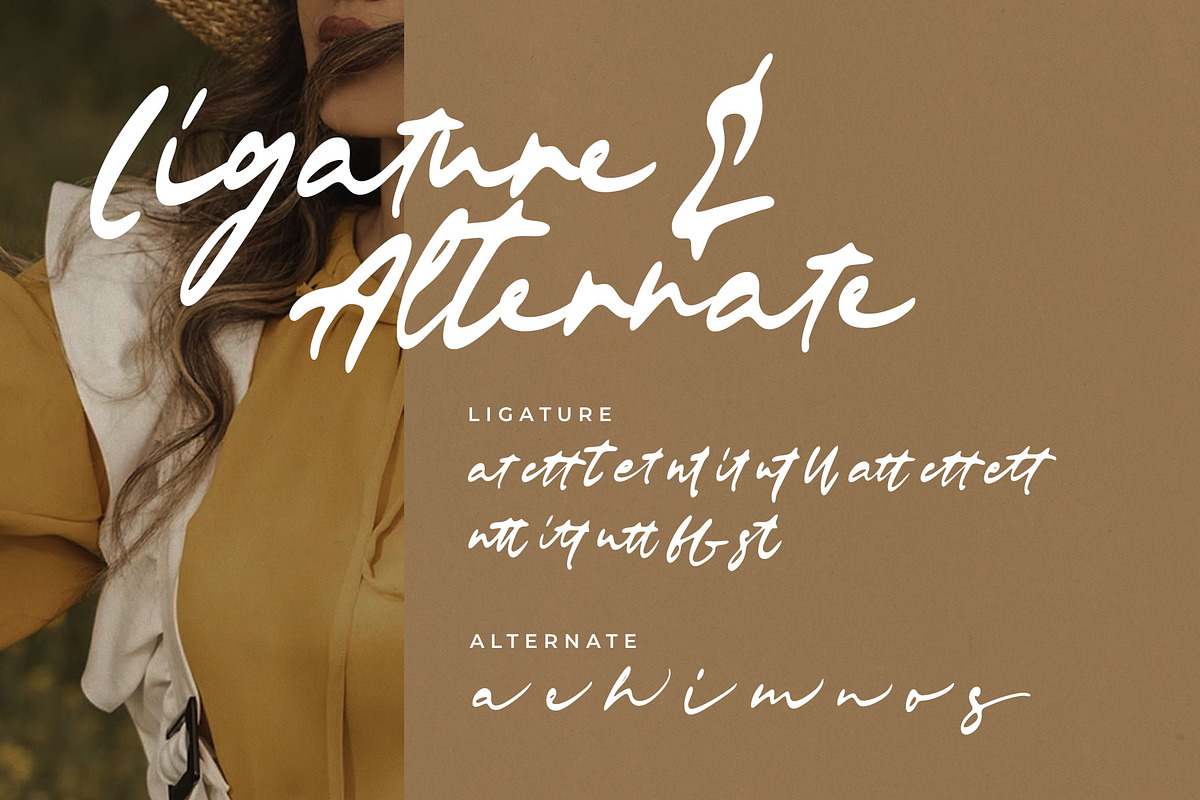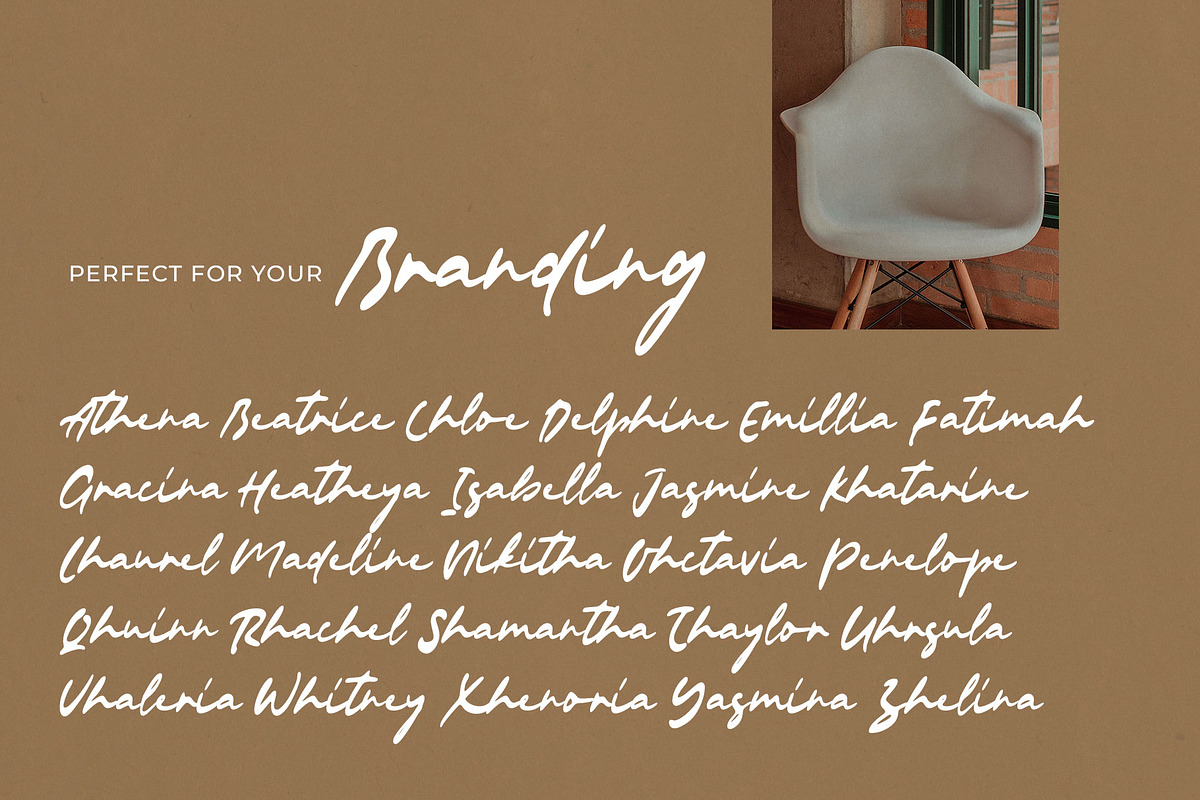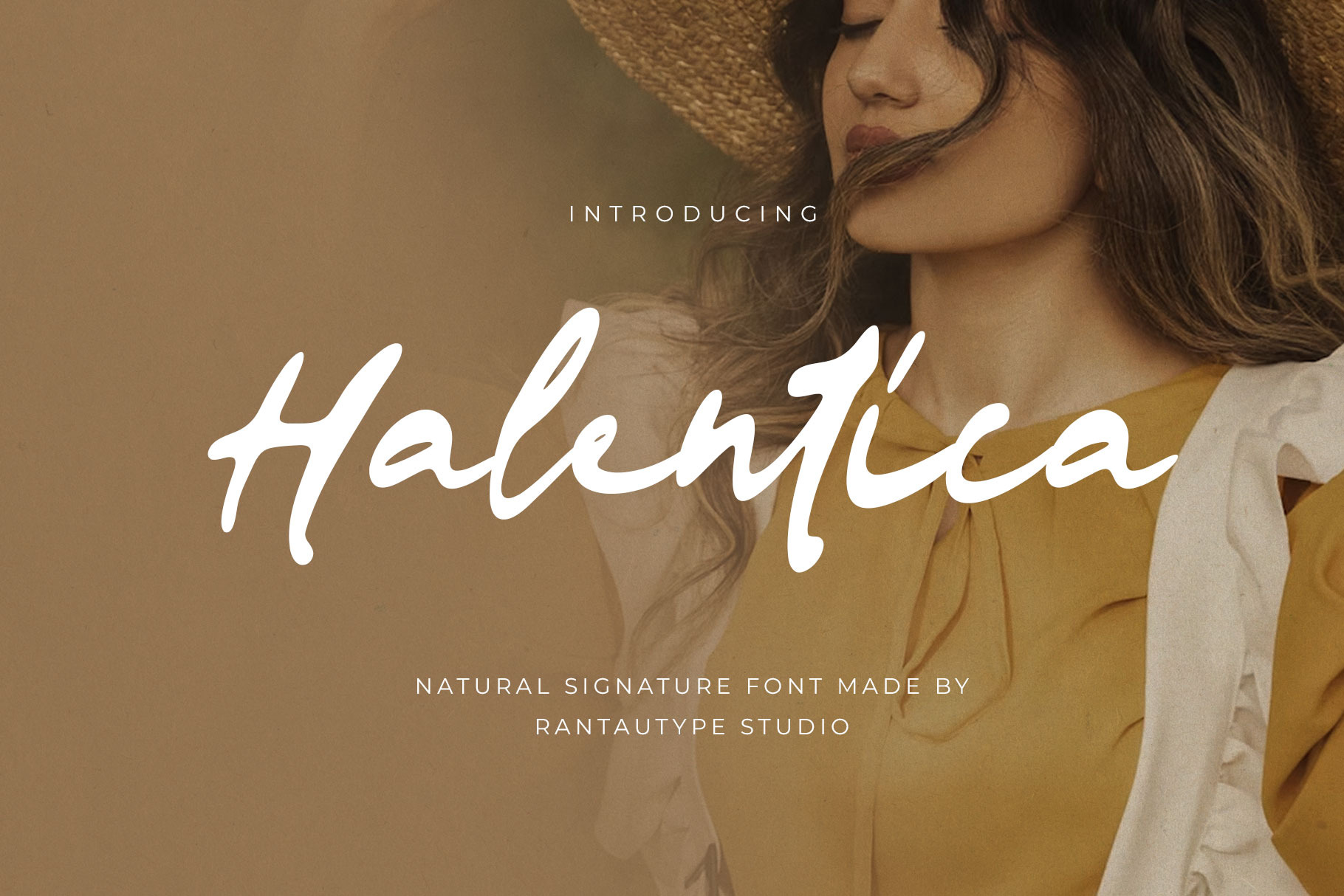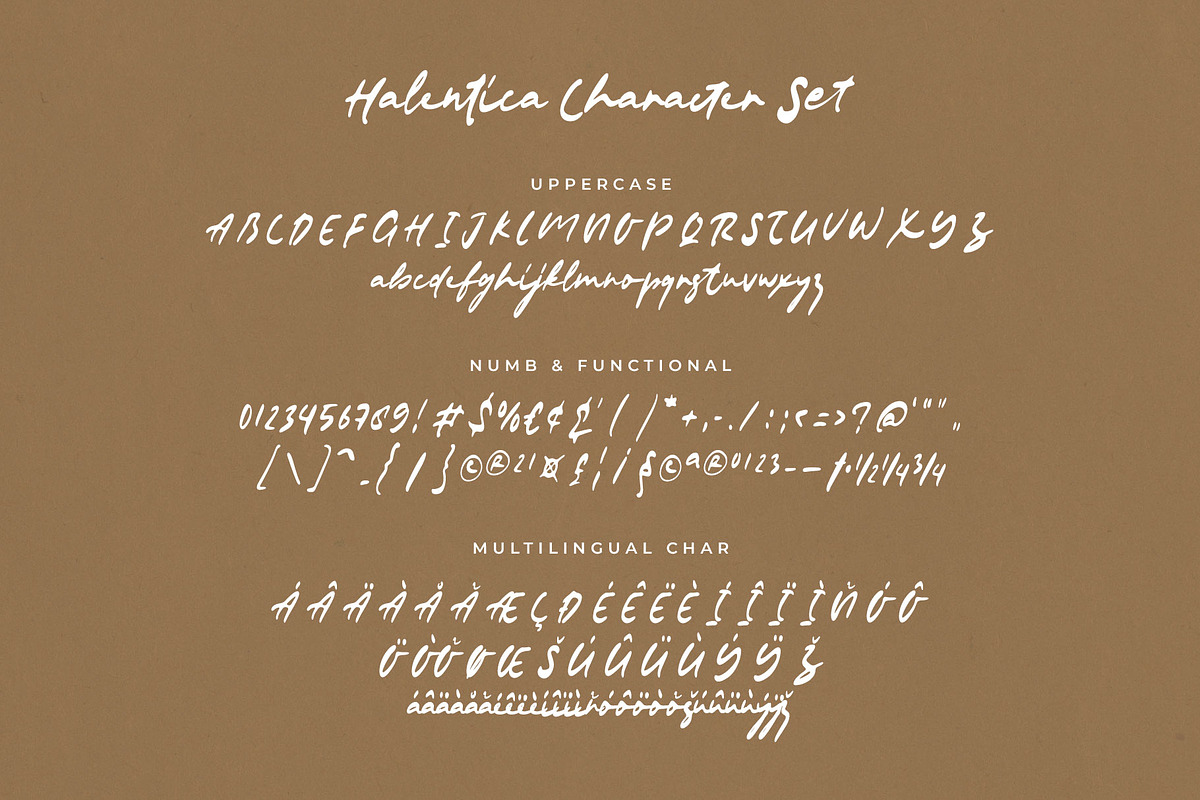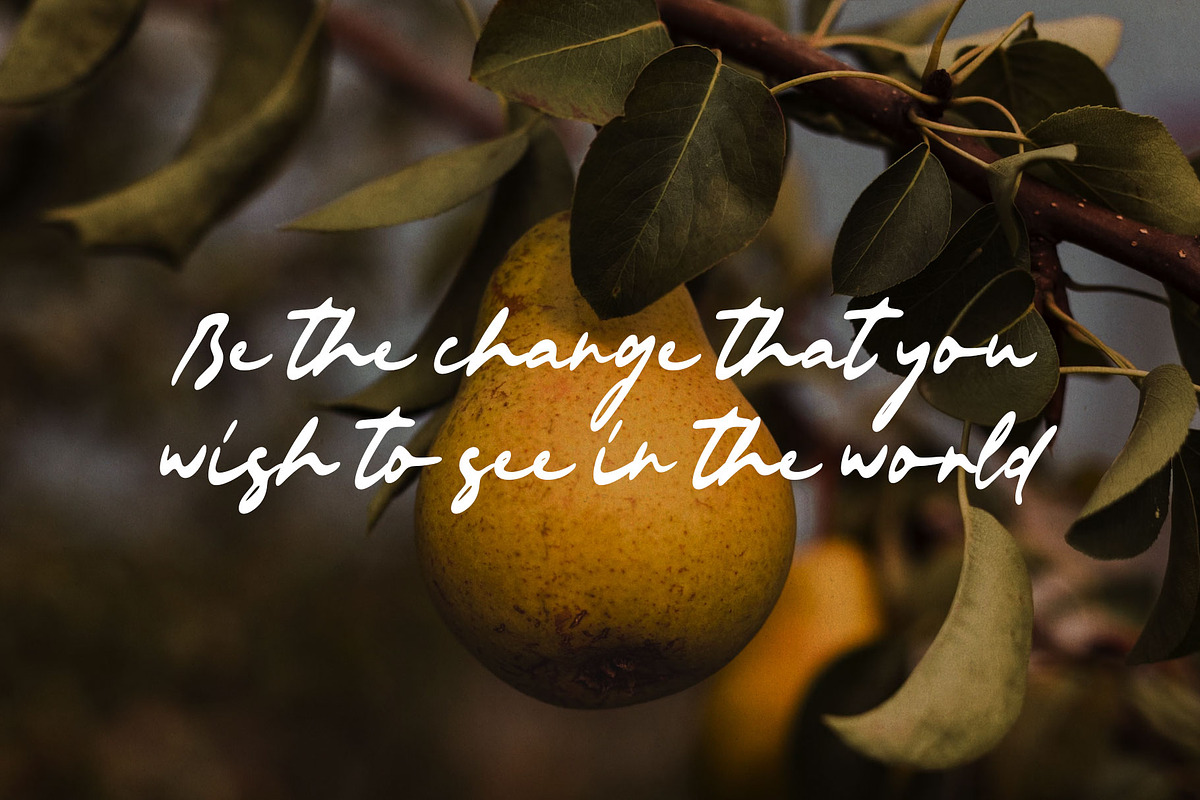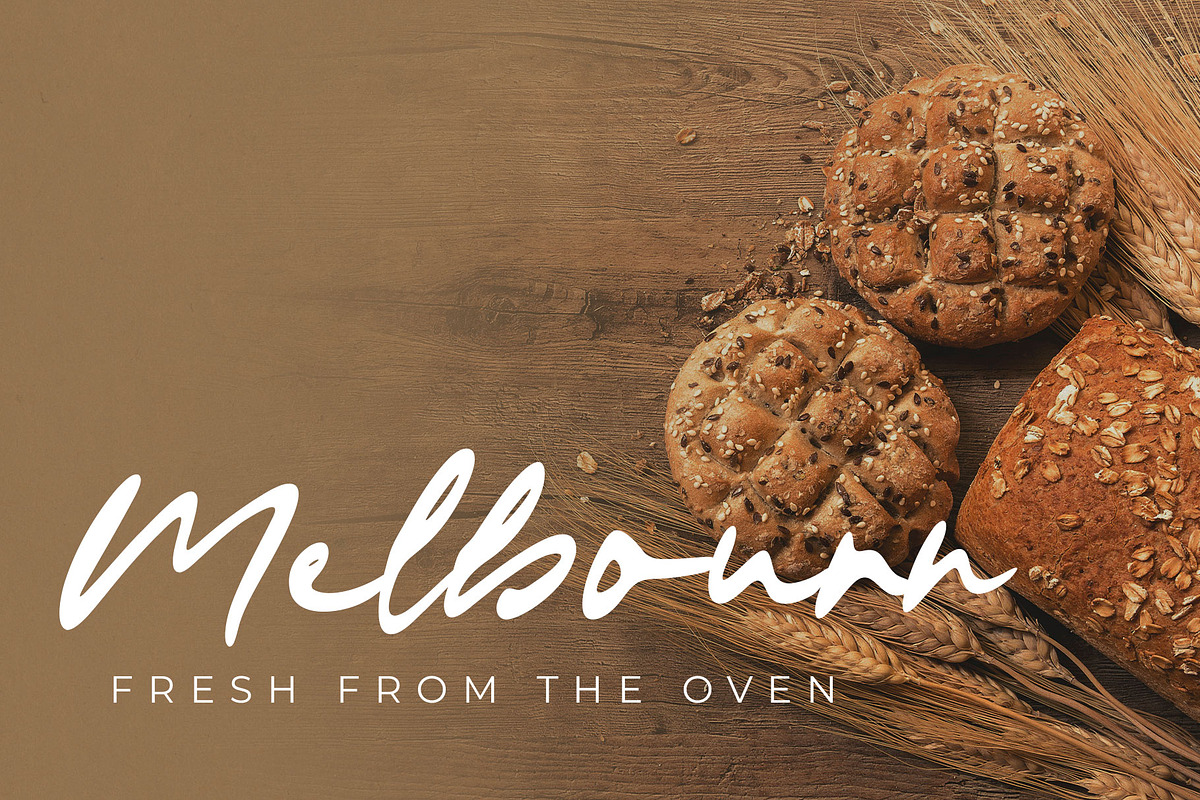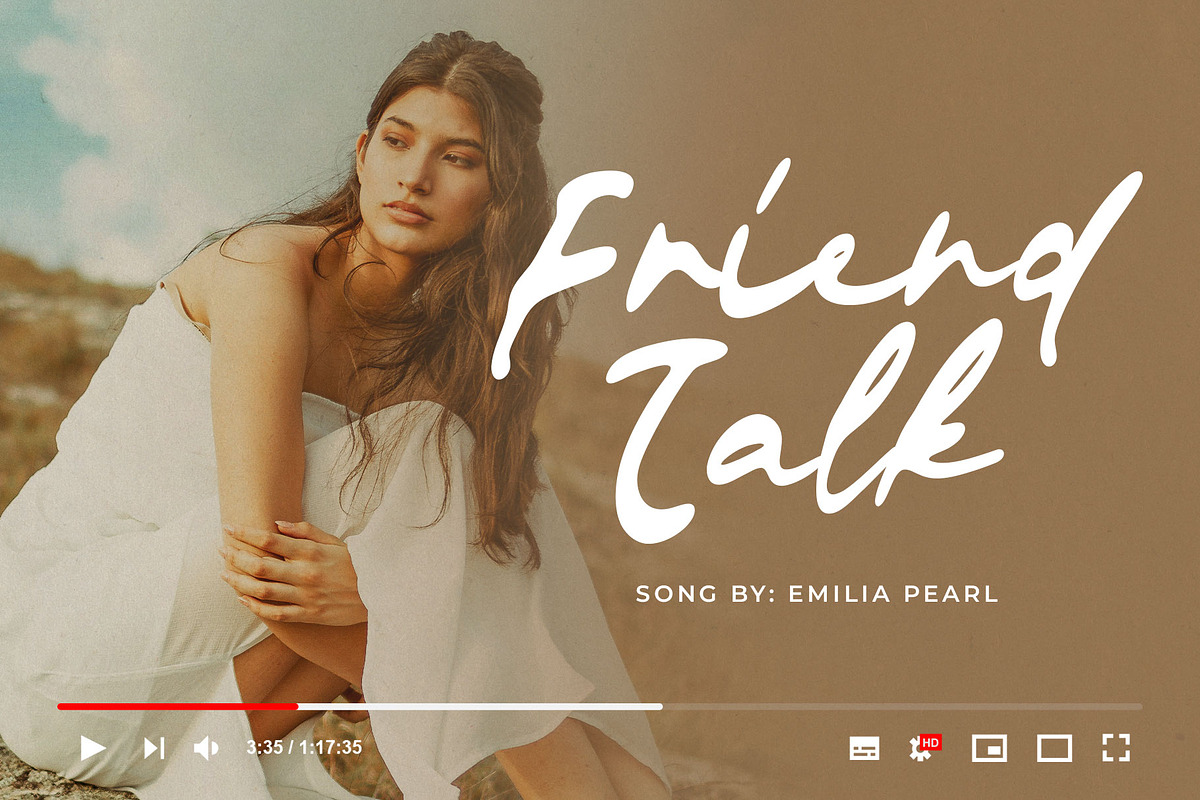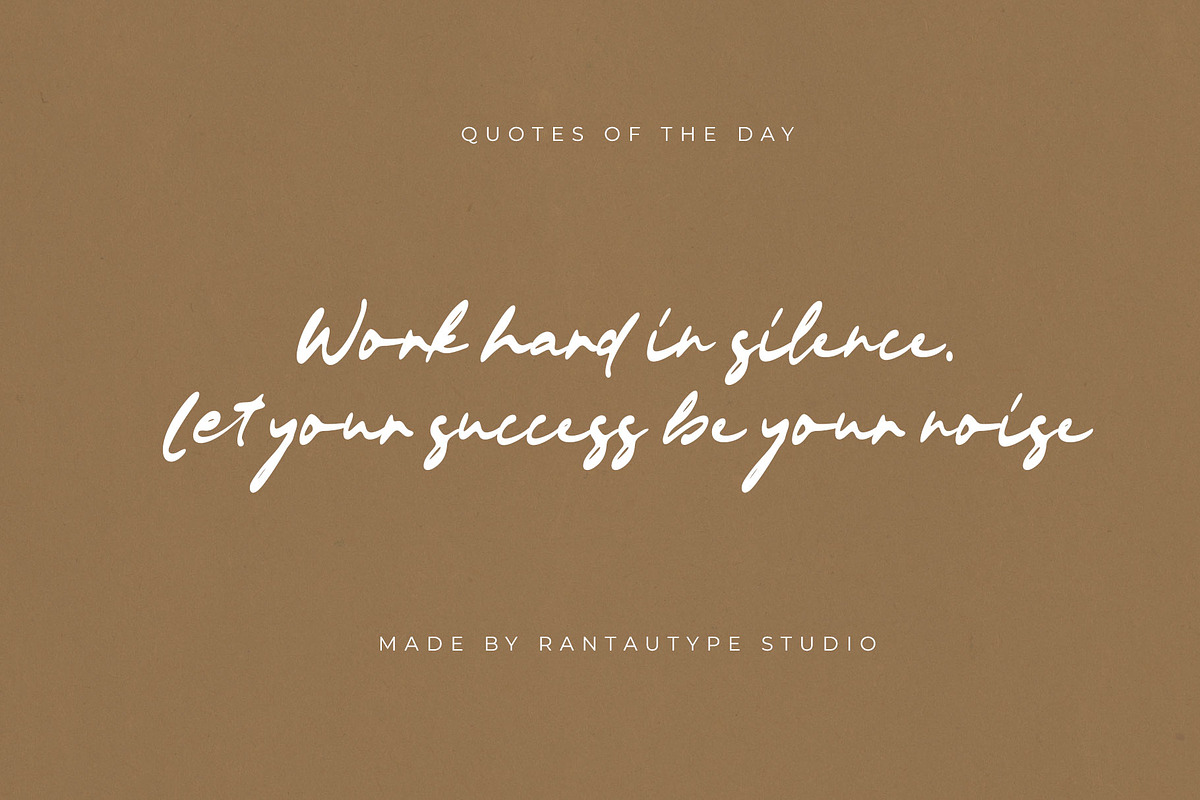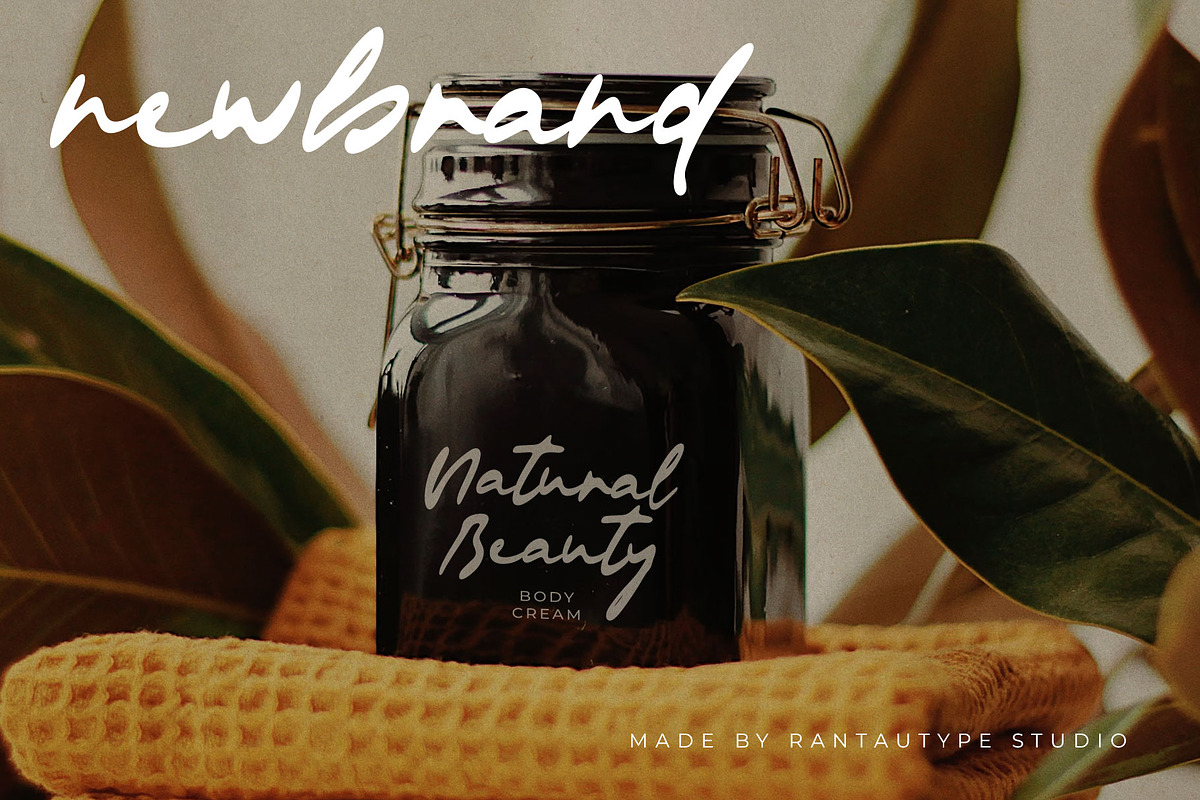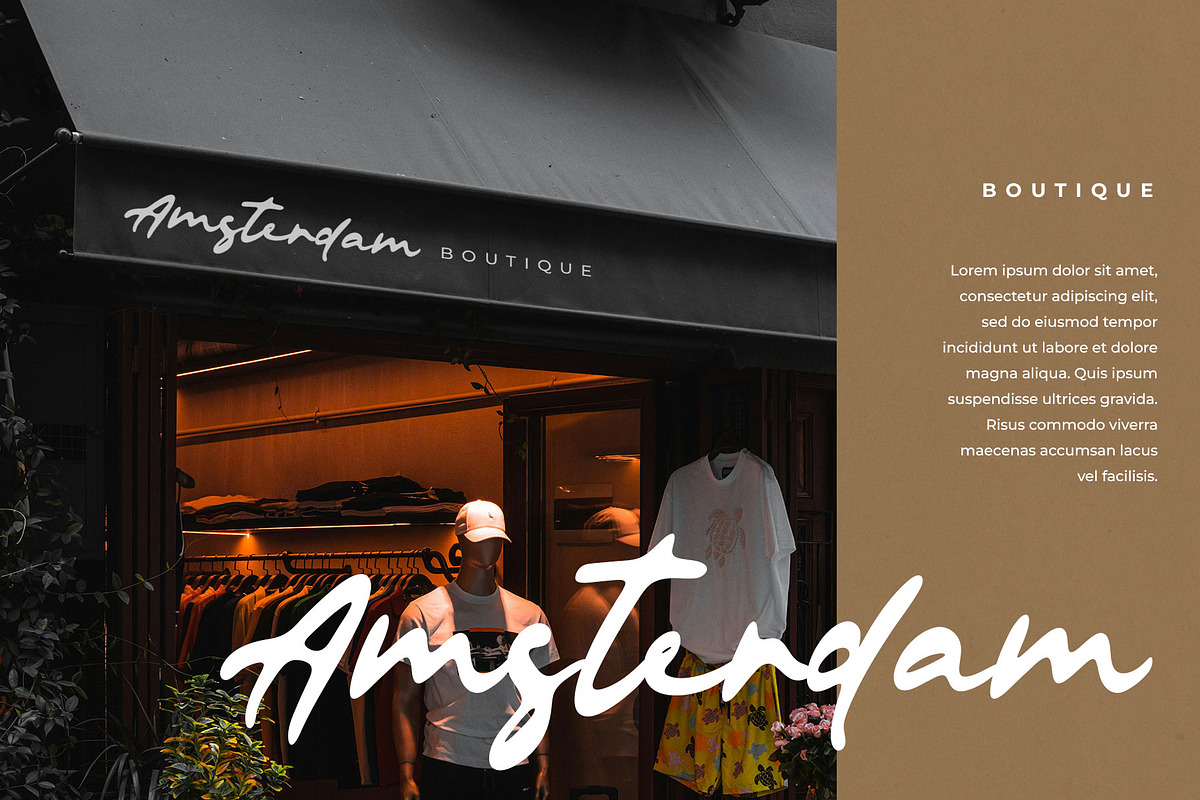
Halentica Natural Signature Font
Hermilan is signature font with natural hand lettering make it more different. Hermilan is a perfectly choice for any creative endeavor, creating, modern, lifestyle design such as logotype, title, cover, branding, invitations, wedding designs, display and magazine, social media posts, advertisements, printed quotes, product packaging, corporate brand, product designs, labels, photography, watermarks, special events and any other project with handwritten feel.
- Alternate and ligature